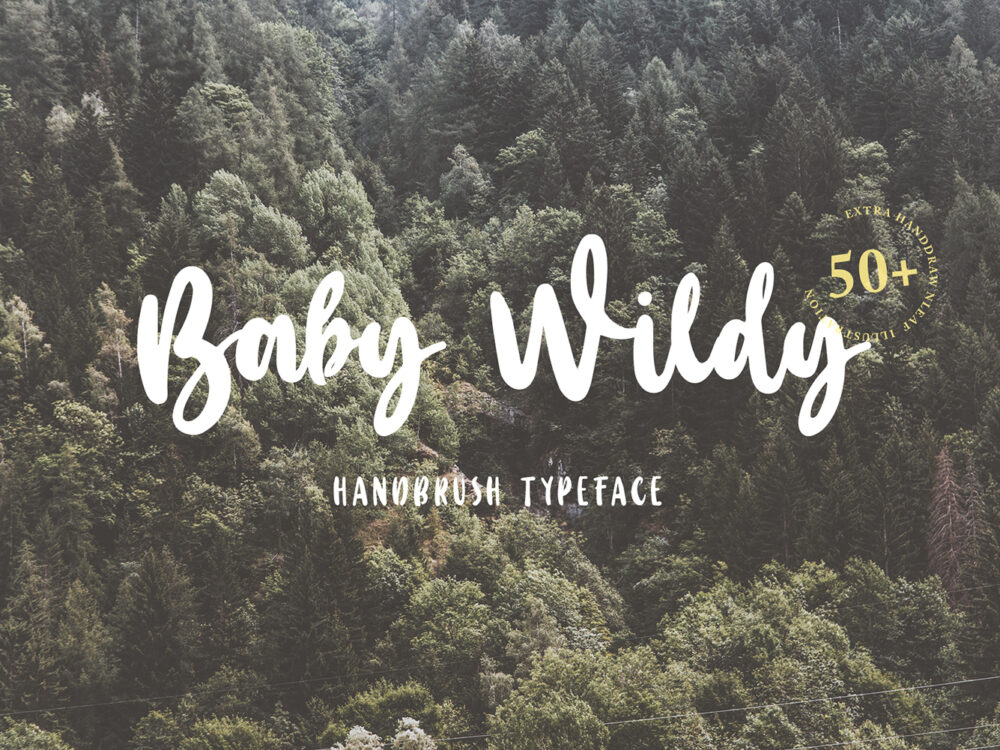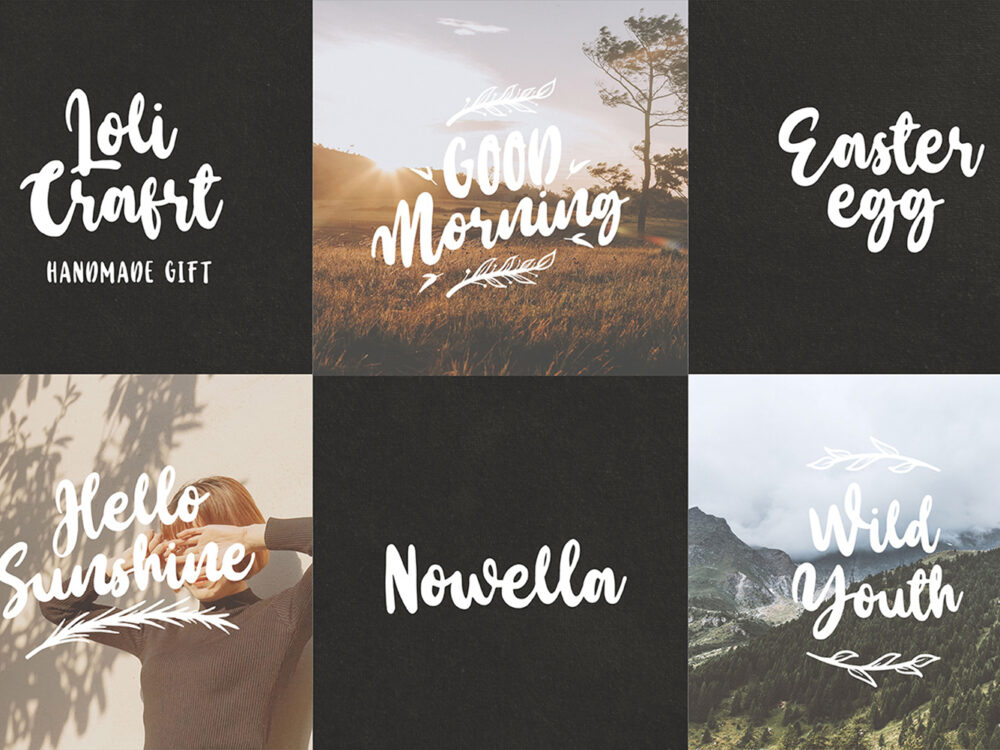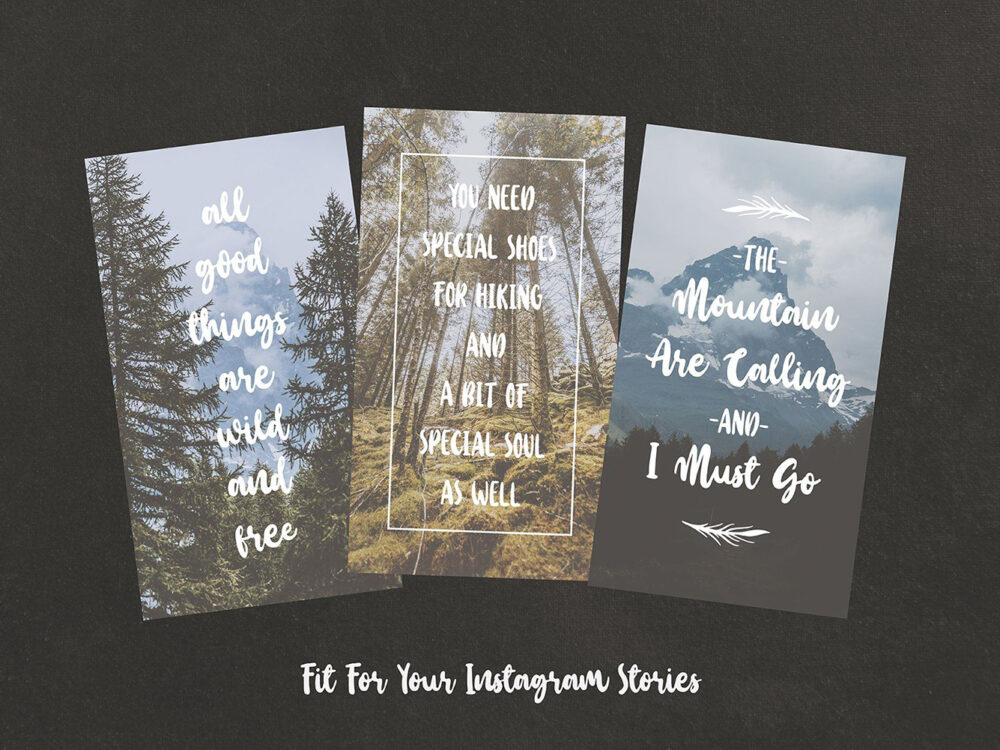
Baby Wildy Handbrush Font
Baby Wildy Handbrush Font is a beautiful handwritten font inspired by the modern style of calligraphy. You can use this font to create typographic designs, posters, postcards, invitations, and more. If you wish to use it for commercial work, go get the full version.